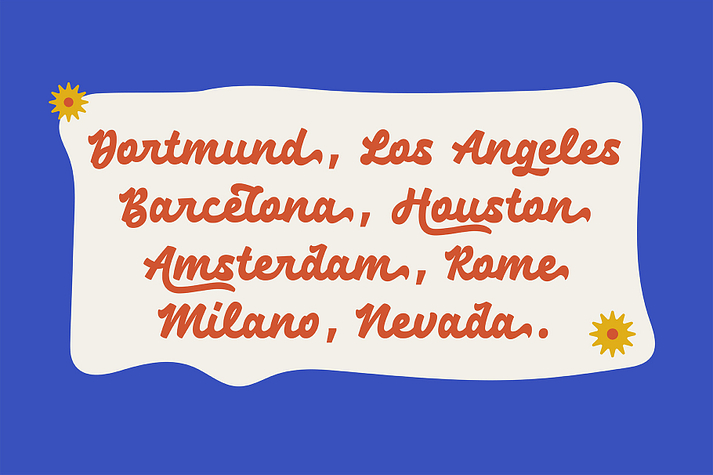
Strongkers
Strongkers is a font family published by Wacaksara Co.
Strongkers Script is an exquisite hand-lettered font with a bold script style that is perfect for all of your design needs, from logos, book covers, apparel, magazine, web designs, cards, headers, letterhead, invitations and product packaging. This font is inspired by the beauty of manual lettering and includes many advanced features such as ligatures, contextual alternates, and multilingual support, making it a versatile tool for any project. With Strongkers Script Font, you can enhance your designs and bring your creative vision to life.